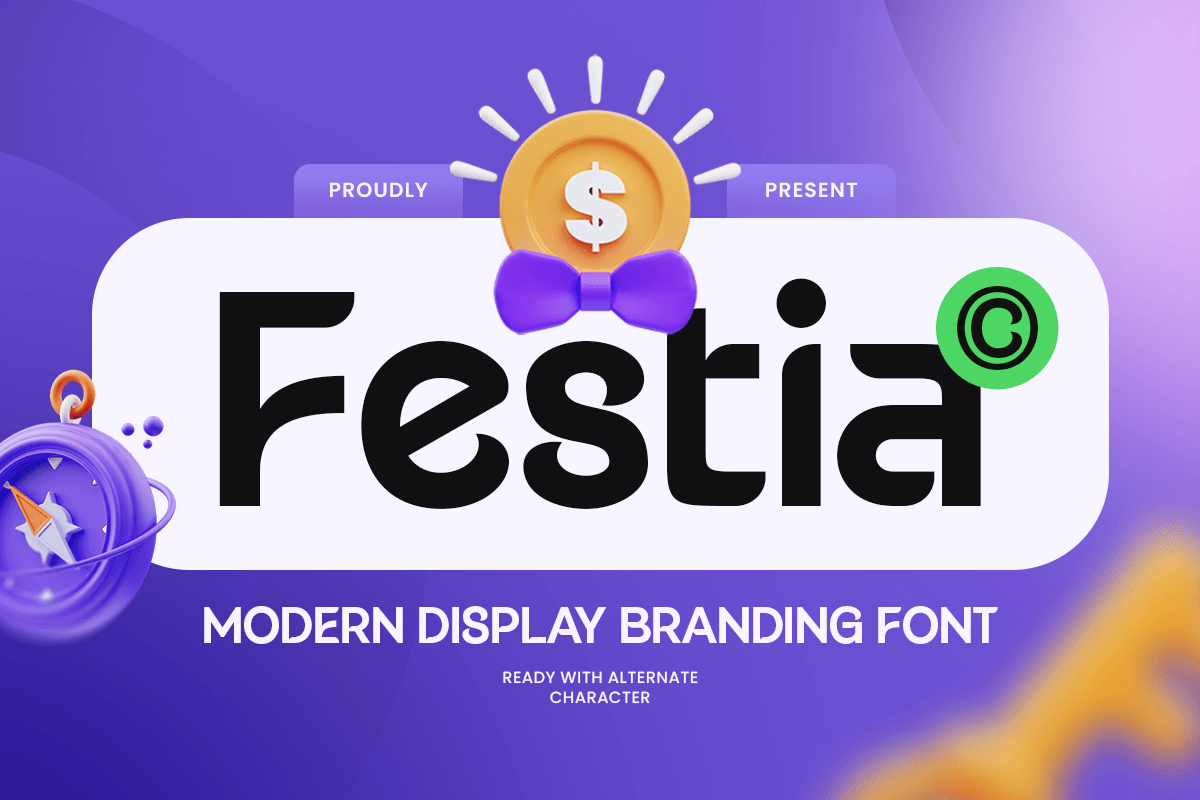
Festia
-Modern Display Branding Font
Festia
Festia - Modern Display Branding Font
Festia is a modern display branding font designed to deliver bold personality and polished visual impact. With confident letterforms, balanced proportions, and a clean contemporary rhythm, this typeface creates a strong brand-ready tone that feels stylish, memorable, and highly versatile.
Built for statement typography, Festia works beautifully across logos, wordmarks, brand identity systems, posters, packaging, labels, website headers, signage, presentations, social media graphics, and promotional visuals. Its display structure gives every composition strong presence while maintaining clear readability across both digital and print layouts.
Whether you’re creating a modern business identity, launching a product brand, designing bold campaign visuals, or crafting clean promotional headlines, Festia provides a flexible display foundation that makes your typography feel fresh, confident, and instantly recognizable.
Inspiration Behind Festia
Festia is inspired by contemporary brand systems and modern display typography—where strong shapes, clean structure, and bold visual rhythm create memorable communication. The design focuses on confident presence and versatile readability to support logos, headlines, and branding visuals with a sleek professional edge.
Festia Font Features:
• Modern display letterforms optimized for branding and logo design
• Clean structure for bold identity and strong headline presence
• High readability for posters, packaging, and promotional layouts
• Logos, wordmarks, and modern brand identity systems
• Posters, campaigns, and headline-driven promotional design
• Packaging, labels, and product branding visuals
• Website headers, social media graphics, and digital ads
• Presentations, signage, and impactful marketing materials
Build a bold modern identity with Festia—a display branding font made for clean, memorable visual impact. ✨